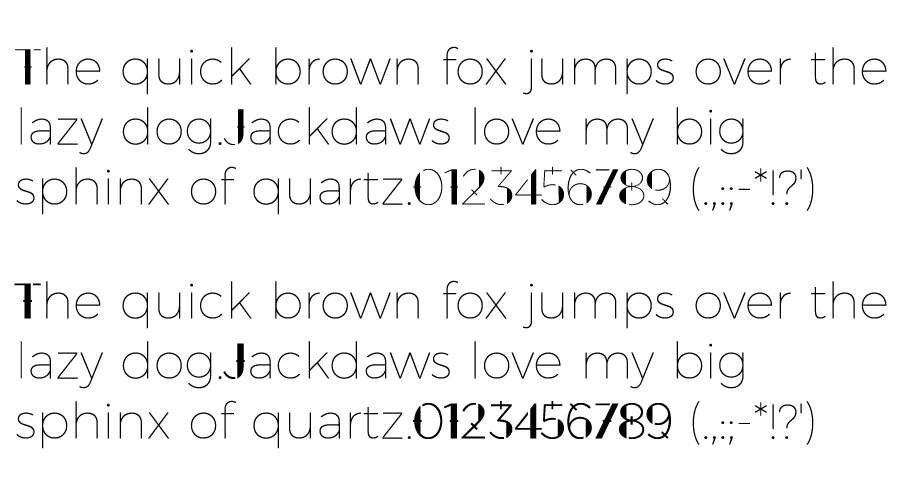
Logo is an important part of branding. The identity of a company is revealed through the logo. So designers look for interesting fonts to create attractive logos. For that reason, we came up with a nice font today thinking about all those designers. Itroducing September Font!
September is a Display font with an amazing typeface. Borja Fernández designed this font based on old school knuckles tattoos. With three weights, September font has the ability to attract the viewer’s attention.
Since this font is specially designed for designing, we can say that it is not suitable for official work.
• September font is an ideal font for branding. You can create logos, banners, posters, brochures, business cards, books cover, etc. with this font. September is also useful for website titles and game development.
• This font is also useful for YouTubers. In particular, they will be able to use this font in YouTube thumbnails and channel art.
• September Regular
• September Bold.
• September Shadow.
What type of font is September?
Ans: September is a Display font with an amazing typeface.